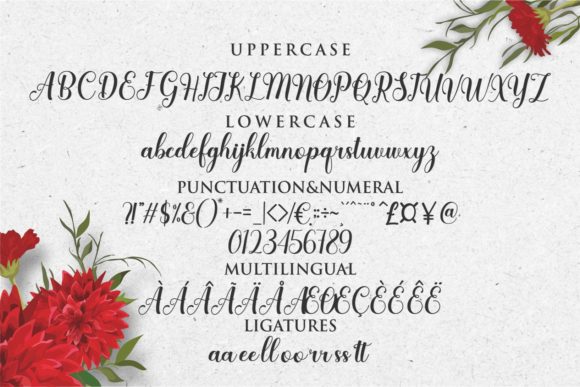
Delisha Vegan Font
db-ku.com - Script & Handwritten -- Delisha Vegan is a modern calligraphy font with special heart characters. Fall in love with its authentic feel and use it to create gorgeous wedding invitations, beautiful stationary art, and cute greeting cards.